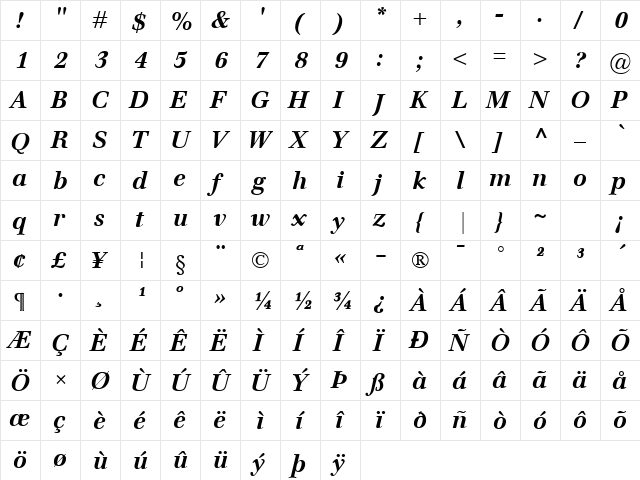
Emona BoldItalic Font Preview
Design Context for Emona Typeface
Emona takes a measured approach to typography — its balanced proportions and neutral character make it a reliable workhorse for both digital and print work. The dynamic lean of this cut emphasises speed and emphasis in any layout. The heavy weight commands attention and anchors typographic hierarchies.
Pro Tip: Try Emona for annotation and caption copy alongside an upright companion — the contrast in angle creates a dynamic but ordered typographic system.